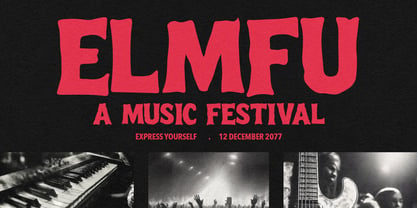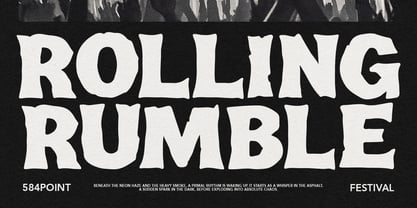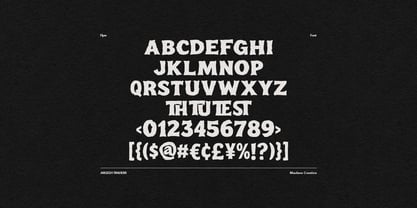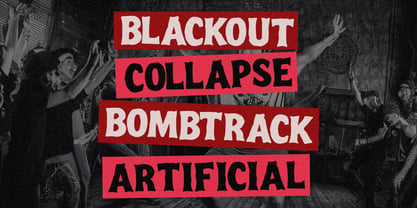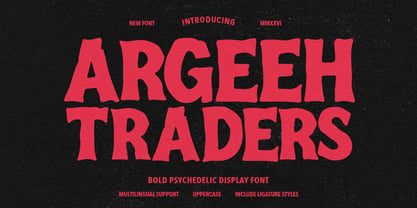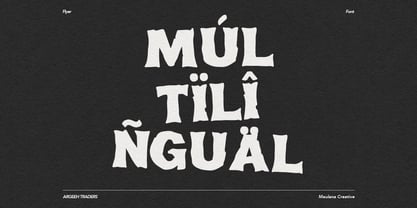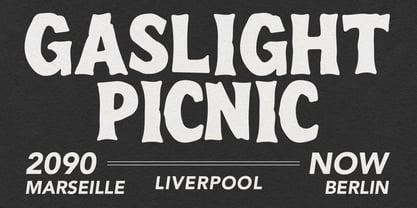
Argeeh Traders
von Maulana Creative
Die Schriftfamilie Argeeh Traders wurde von Gilang Maulana entworfen und von Maulana Creative veröffentlicht. Argeeh Traders enthält 1 Stile. Mehr über diese Familie
Argeeh Traders is a bold display font heavily inspired by the expressive, fluid art movements of the psychedelic era. Featuring striking, wavy letterforms with a solid, heavy weight, this typeface commands attention and injects an energetic, vintage rhythm into any creative composition. Designed entirely in uppercase, it comes packed with unique ligatures and broad multilingual support, making it highly versatile for global design contexts.
Its fluid curves and distinct retro personality make it an exceptional choice for music festival posters, album covers, vinyl packaging, bold headlines, large-scale event graphics, and distinct branding assets that require a memorable, expressive visual identity.
Designer: Gilang Maulana
Foundry: Maulana Creative